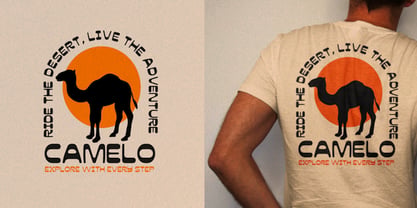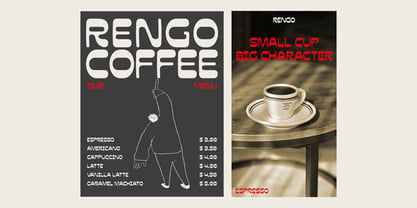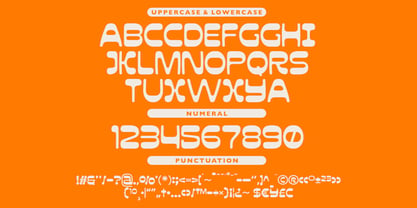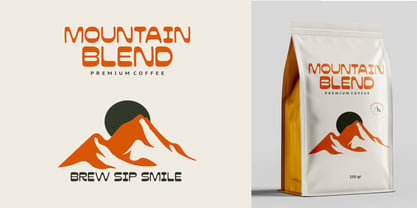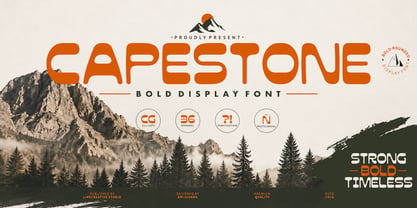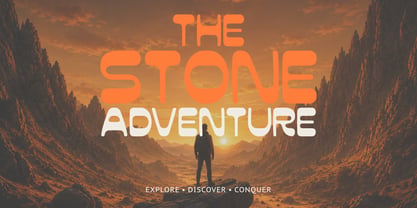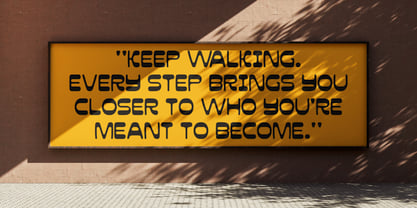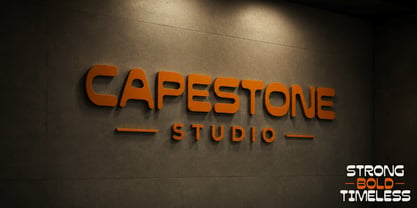
Capestone
Capestone is a bold display font inspired by the strength of mountains, outdoor adventures, and timeless branding. Designed with smooth rounded corners and confident geometric shapes, Capestone delivers a modern yet friendly appearance that instantly grabs attention.
Whether you're creating outdoor brands, coffee packaging, travel posters, apparel, logos, or social media graphics, Capestone gives your designs a strong and memorable identity.
Its clean construction and bold personality make it perfect for projects that demand impact while maintaining excellent readability.
Capestone is more than just a font—it's a typeface built to capture the spirit of exploration, resilience, and bold creativity. Whether you're designing for the great outdoors or building a modern lifestyle brand, Capestone helps your message stand tall.
Make your next design bold. Make it unforgettable with Capestone.